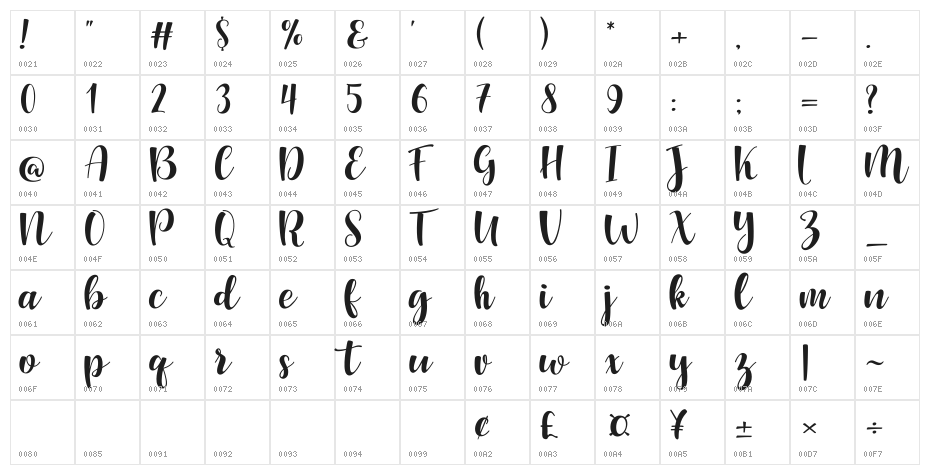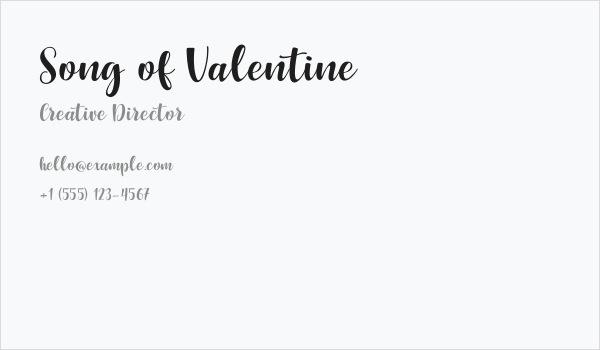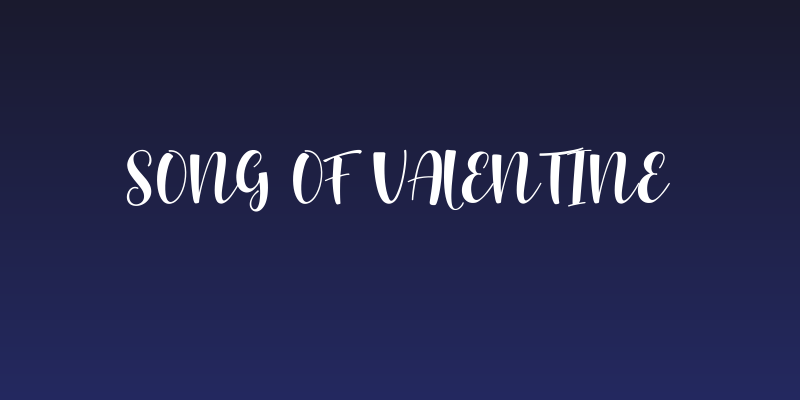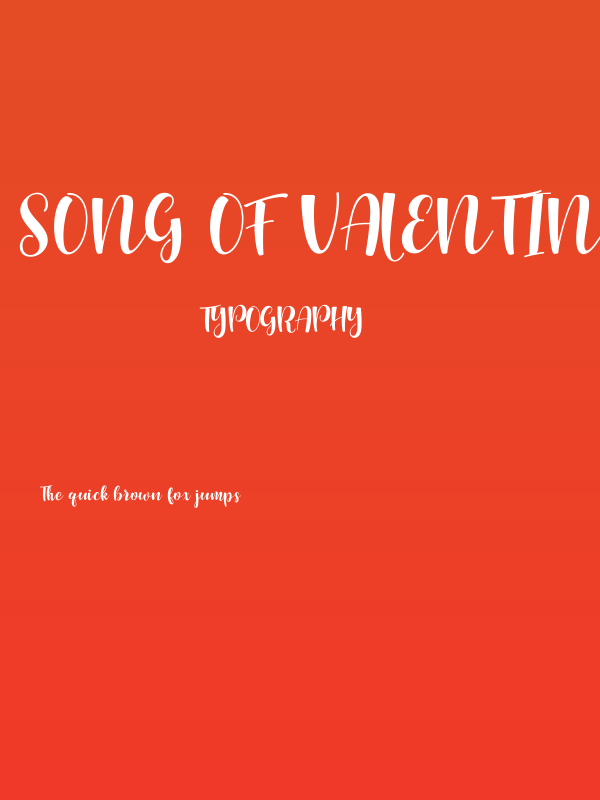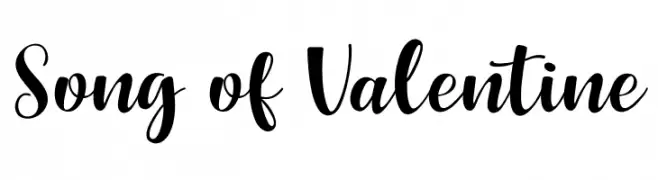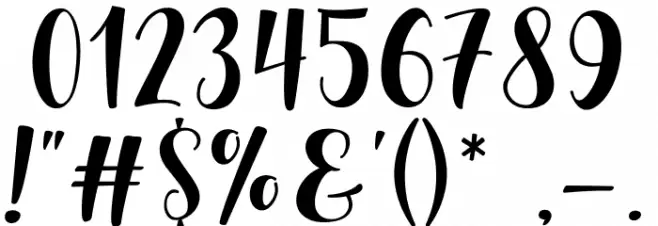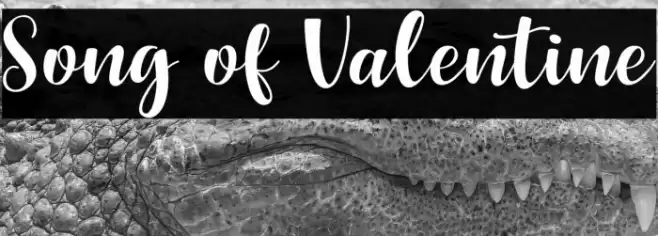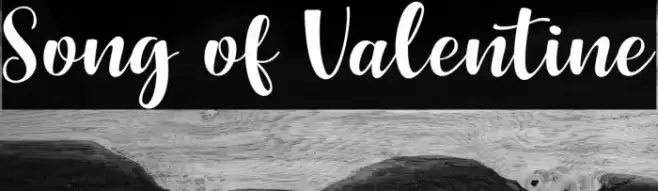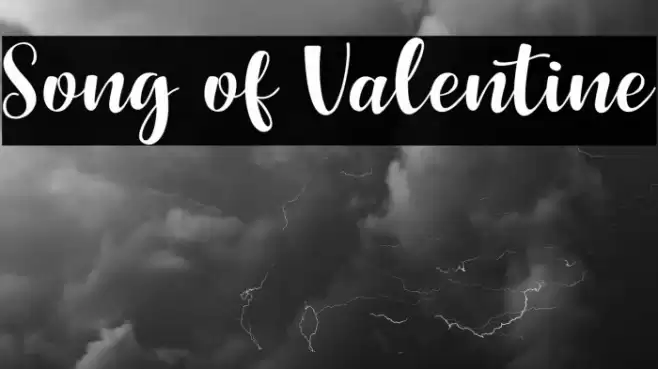
Song of Valentine Font
Song of Valentine Description
A decorative, cursive script font with elegant, flowing strokes and varying line thicknesses, suitable for stylish and artistic designs.
| Overall Style | Elegant, Modern, Artistic |
| Use Case | Headlines, Invitations, Logos, Branding |